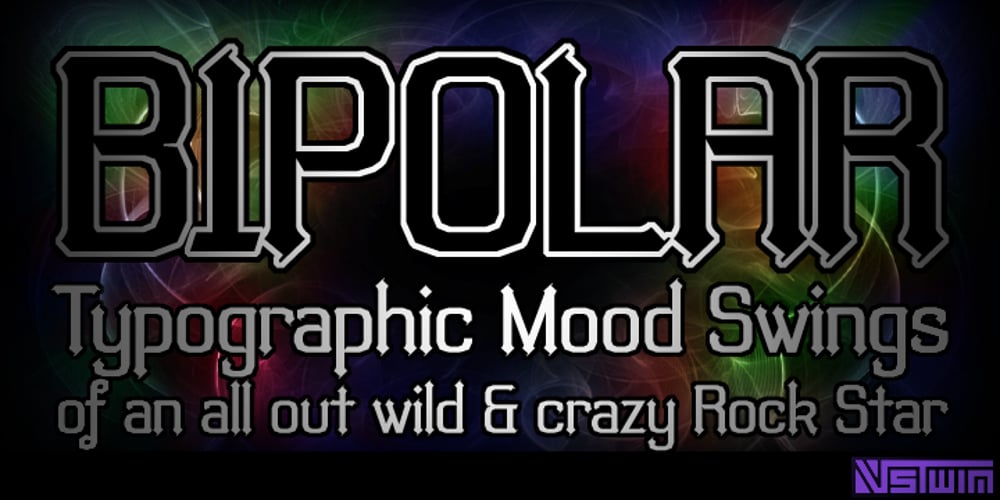
Bipolar Font Family was designed by Brian J. Bonislawsky, Brian Jaramillo and published by VersusTwin. Bipolar contains 4 styles and family package options. The Bipolar family of fonts is a synthetic blend of digital grid and historical blackletter forms, combining readability and ornamentation into a single modern interpretation. If you feel like you recognize this font style, you may have seen it as the menu font in the popular RockBand series of games. This trendy neo-medieval revival is hot!